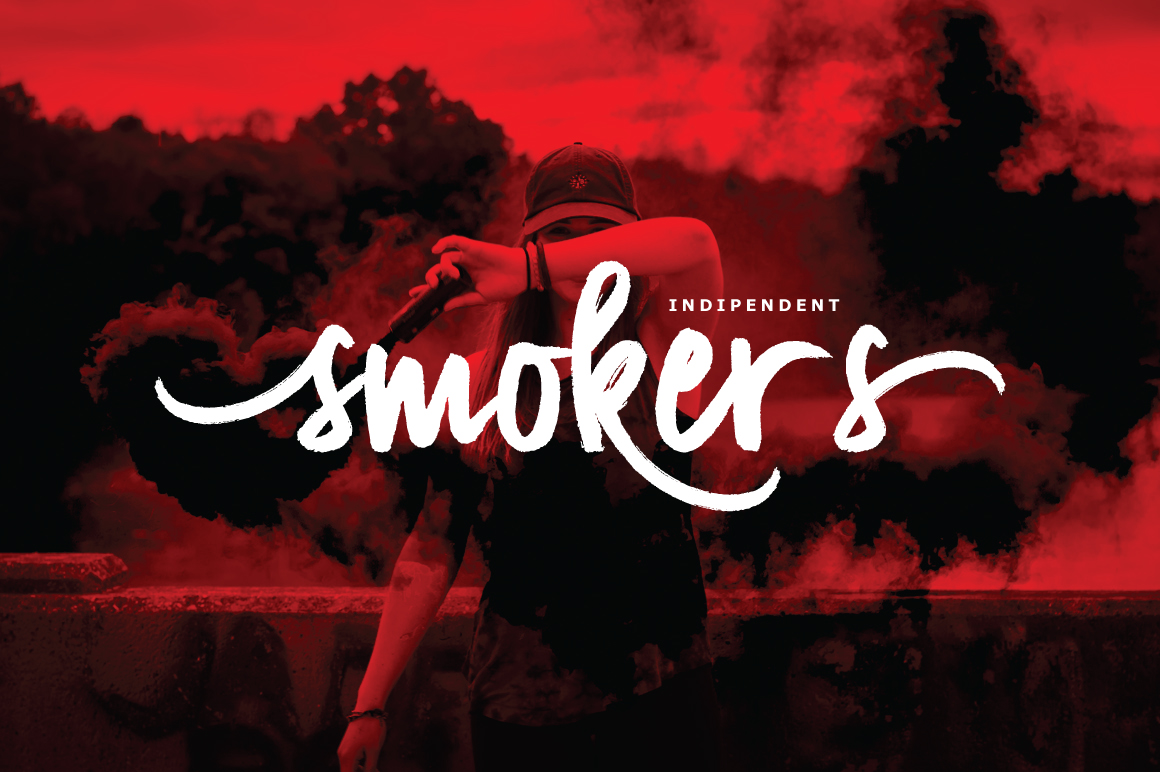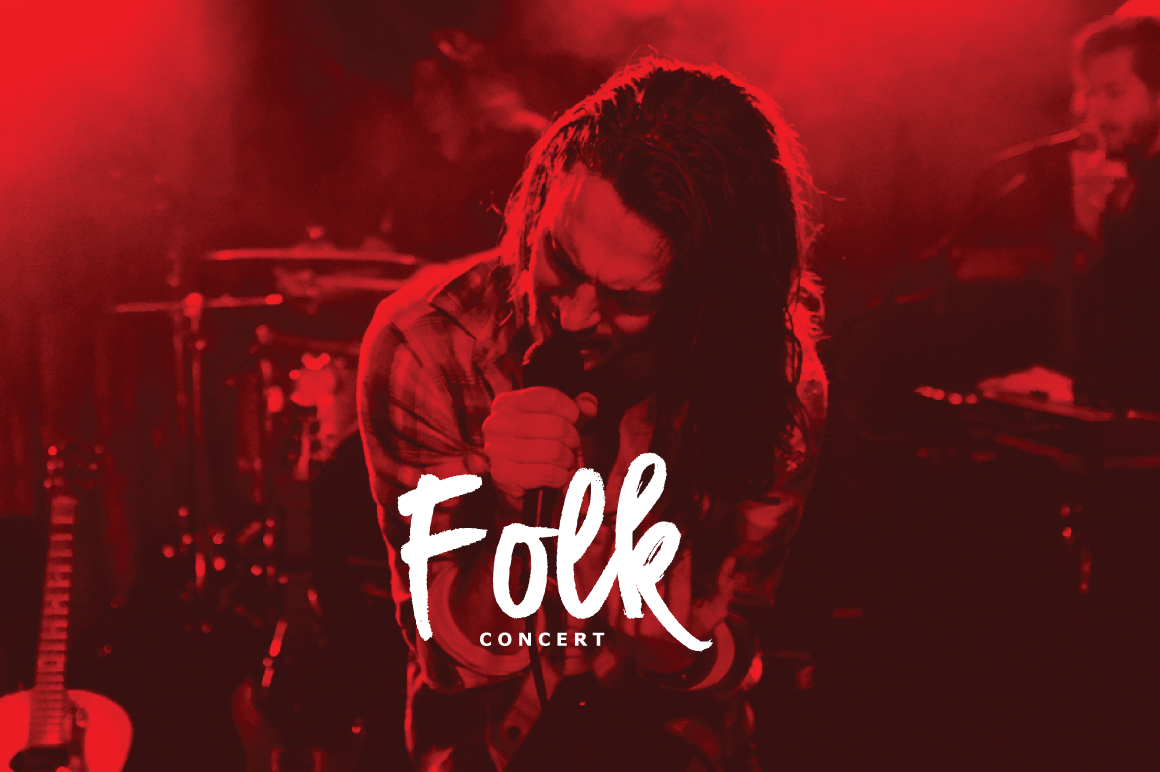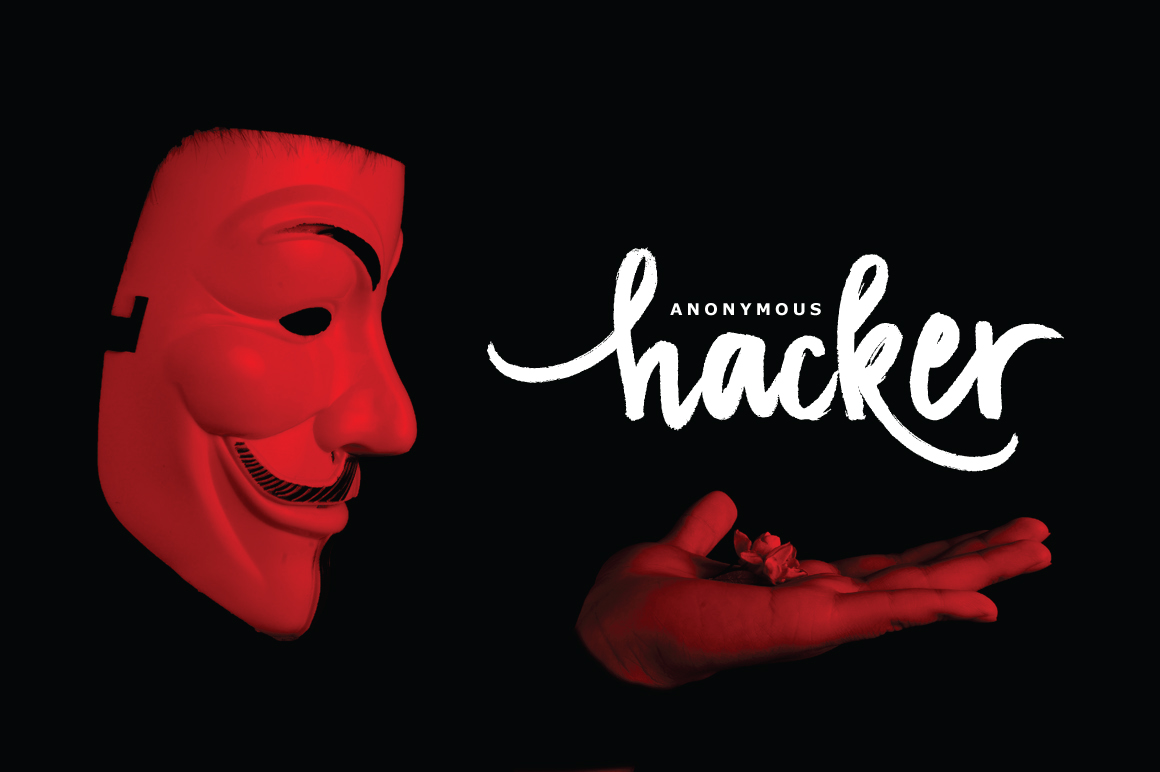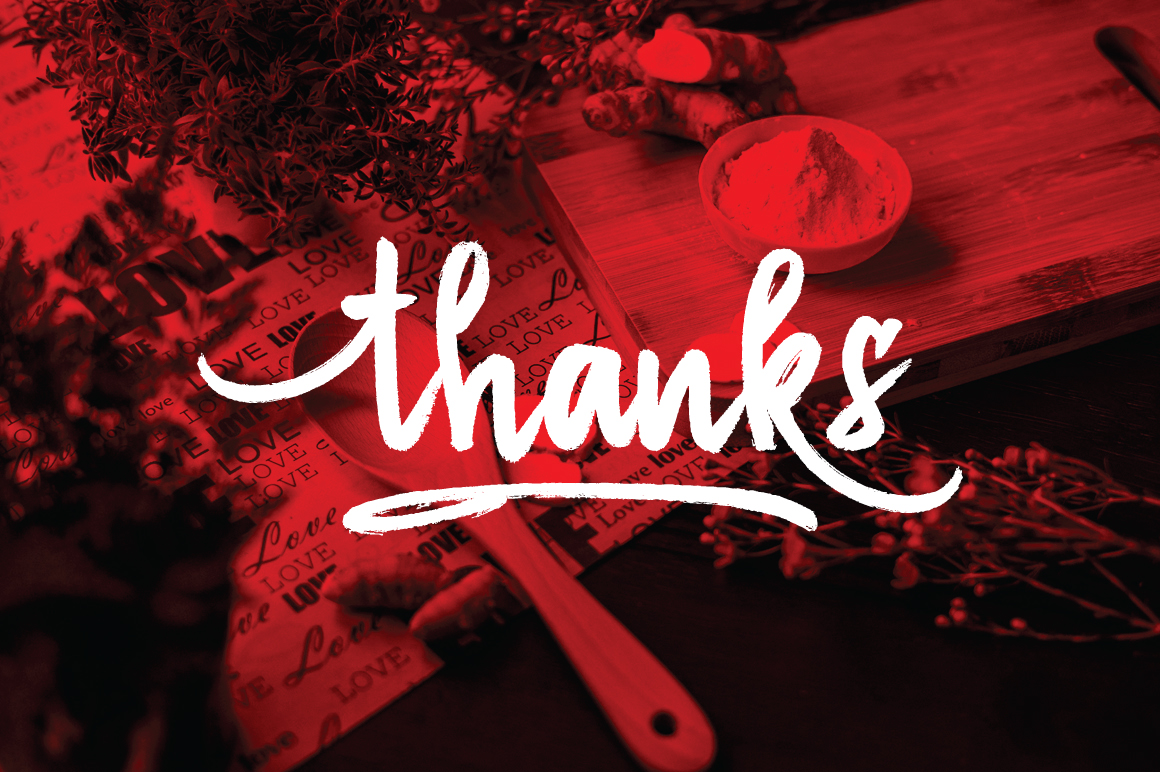
Introduction to Manksa Font
Have you ever stared at a blank canvas, waiting for the perfect font to bring your creative project to life? I’m sure many designers can relate to that moment of frustration, searching for the perfect typography to convey the emotions and tone of their work. But what if I told you that there’s a font that can do just that, and more?
Meet the Manksa Font, a stunning textured brush font designed to leave an impression on your audience. With its high-quality design and versatility, Manksa Font is the ultimate design resource for any creative project. Whether you’re working on a graphic design, a logo, or even a social media post, this font is sure to add a touch of sophistication and elegance to your work.
What sets Manksa Font apart from other fonts is its complete set of uppercase and lowercase letters, alternate letters, numbers, punctuation, and ligatures, making it a valuable asset for designers who want to take their work to the next level. And the best part? You can download it for free, perfect for designers on a budget or those who want to experiment with different design elements without committing to a paid font.
Key Features of Manksa Font
- Unique, hand-drawn style with a transparent background for versatility in design
- Supports a wide range of languages and characters for international design needs
- Perfect for designers looking for a distinctive, creative font for their projects
Honest Review: Manksa Font
I recently stumbled upon the Manksa Font while searching for a free download for my next design project. As a designer, I’m always on the lookout for high-quality design resources to help bring my creative vision to life.
One of the things that stood out to me about the Manksa Font is its versatility. With a range of styles and weights to choose from, it’s perfect for anything from titles and headings to body text. I love how it looks especially when used on a transparent background – it really makes the text pop!
- High-quality design with a range of styles and weights
- Perfect for titles, headings, and body text
- Looks great on a transparent background
- Not all styles are available for free download
- Some of the heavier weights can be a bit difficult to read
- Not suitable for very small text sizes
Overall, I’m really impressed with the Manksa Font. It’s a fantastic design resource that’s perfect for a wide range of creative projects. While it may have a few limitations, it’s definitely worth checking out – especially if you’re looking for a high-quality font that’s free to download.
Tips for Getting the Most Out of Manksa Font
Use the Manksa Font for headings and titles to add a touch of elegance to your design. Experiment with different font sizes and colors to create a visually appealing design. The transparent background will not affect the design, so you can use it with any background image or color.
The Manksa Font is suitable for a wide range of creative projects, including brochures, business cards, and website design. It is also great for creating social media graphics and advertising materials. With its high-quality design and transparent background, the Manksa Font is a valuable design resource for any creative project.
Alternatives to Manksa Font
Great Vibes is a high-quality, elegant script font perfect for creative projects requiring a touch of sophistication. It’s ideal for wedding invitations, quotes, and other design elements where a delicate, handwritten feel is desired.
Compared to Manksa Font, Great Vibes has a more refined, cursive style that’s better suited for formal designs. It’s available for free download and can be used with a transparent background for a seamless integration into your design.